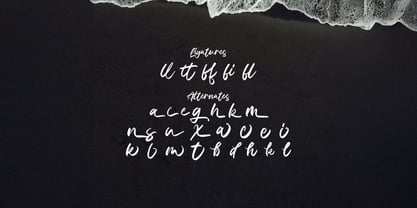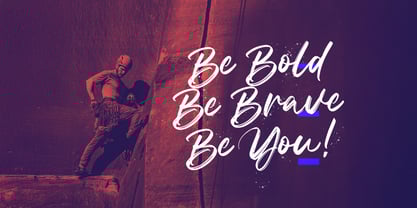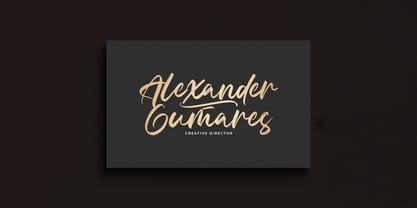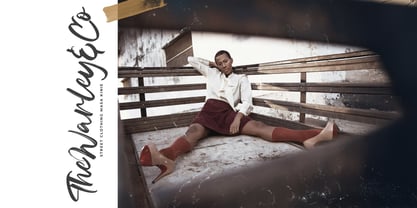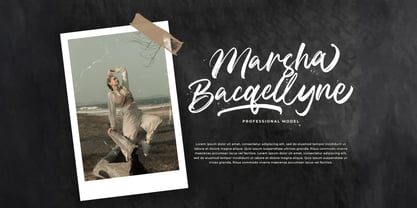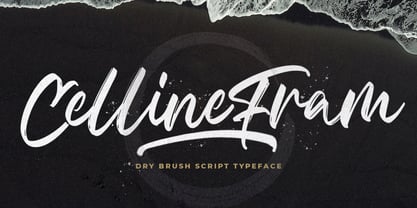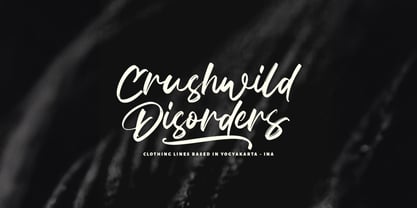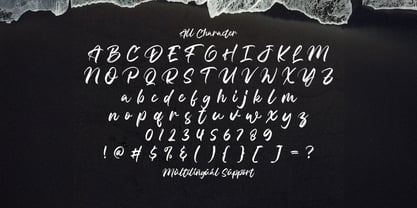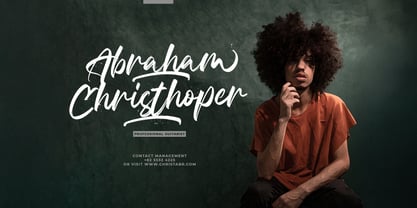
Celline Fram
by Stringlabs Creative Studio
The Celline Fram Font Family was designed by Virgiawan Listanto and published by Stringlabs Creative Studio. Celline Fram contains 1 styles.
Celline Fram is a dynamic textured brush font that blends raw energy with artistic flow. Its bold strokes, handcrafted texture, and expressive movement make it perfect for designs that crave impact and creativity. Ideal for posters, music covers, branding, and merchandise, Celline Fram brings a rebellious spirit and authentic brush-lettered charm to every word.